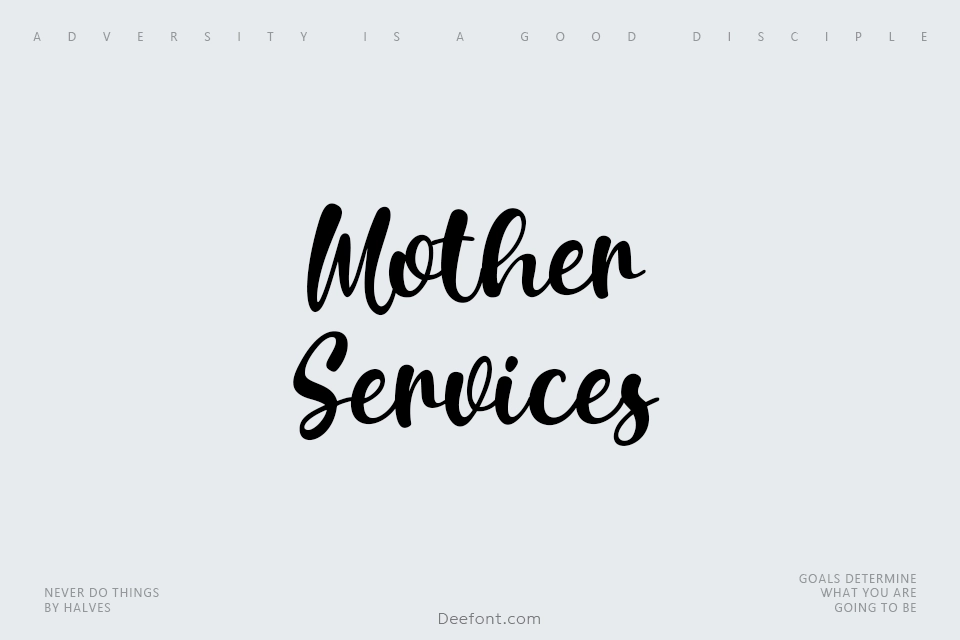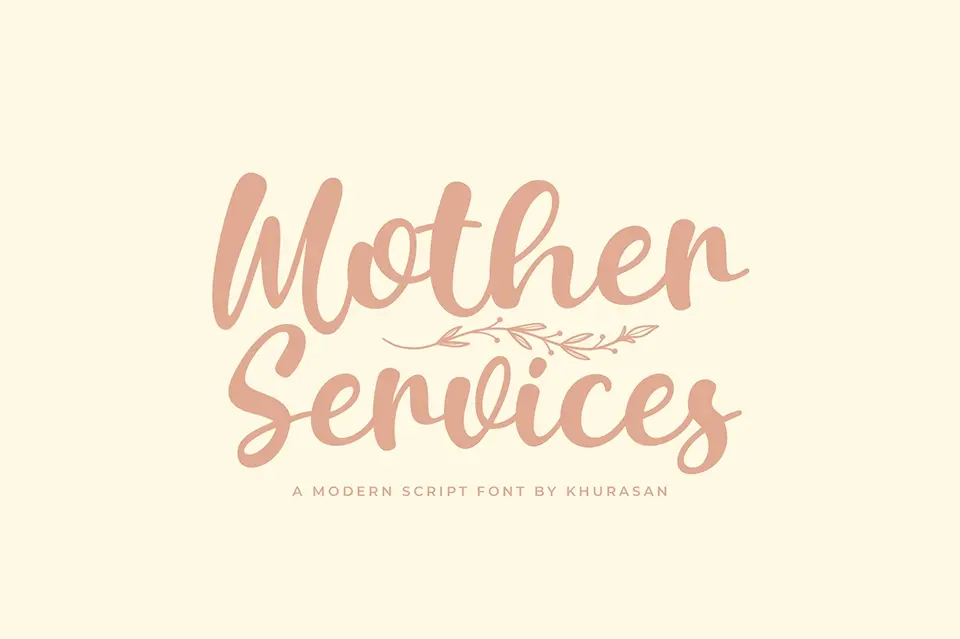
Mother Services Font
The Mother Services font is an elegant handwritten script typeface designed with flowing curves and expressive strokes that evoke a warm, personal touch. This decorative font features graceful letterforms ideal for branding, packaging, invitations, and design projects requiring artistic sophistication. With its versatile appeal and charming handwritten aesthetic, Mother Services seamlessly transitions from bold impactful branding to refined editorial layouts, offering designers a compelling typographic solution for elevating visual narratives with artisanal flair.